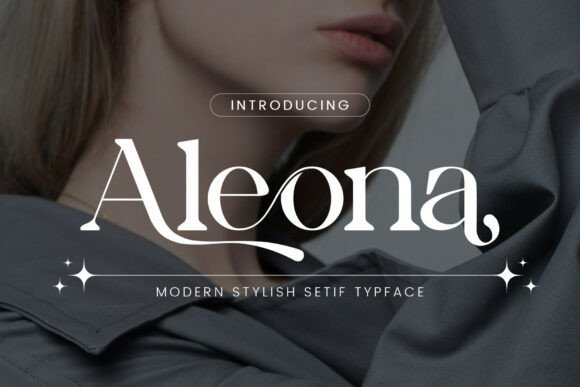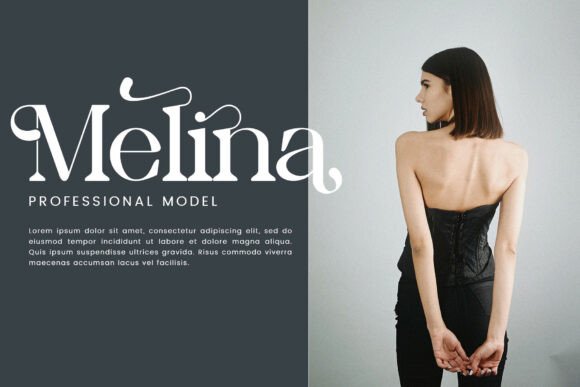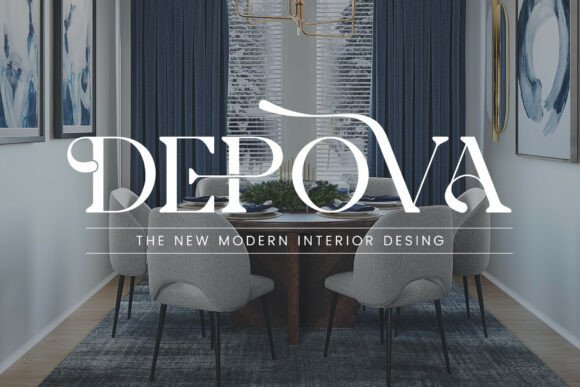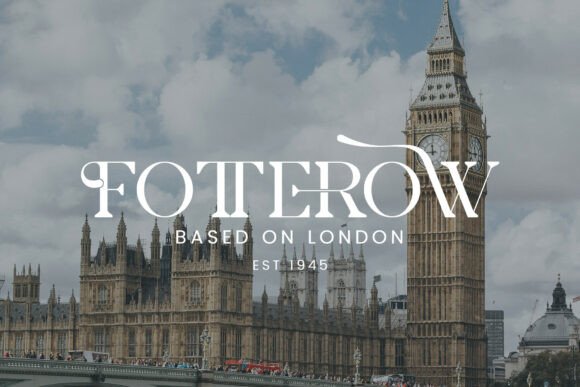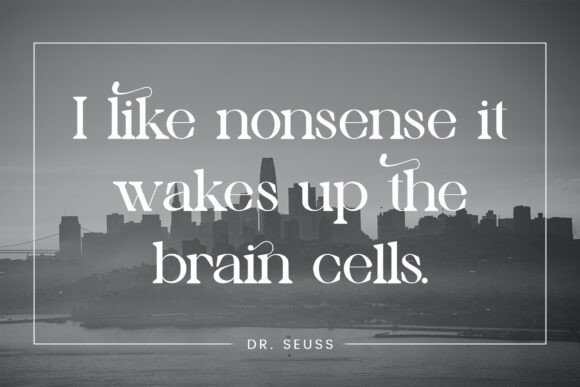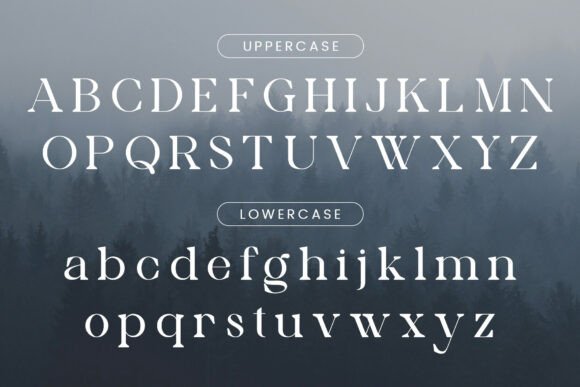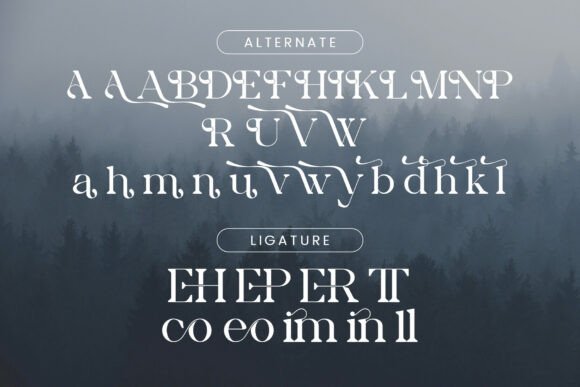
The Elegance of Aleona Font
As a designer, you’ve probably had that moment when a font just clicks – the perfect combination of style and sophistication that elevates your entire project. For me, it was the first time I laid eyes on Aleona Font. Its sleek, modern lines and refined aesthetic immediately caught my attention, and I knew I had to learn more.
Aleona Font is a carefully crafted serif font designed to bring a touch of high-end elegance to your designs. With its high-contrast strokes and beautiful ligatures, it’s the perfect choice for luxury brand logos, upscale editorial headers, and chic social media branding. What sets Aleona Font apart is its ability to convey a sense of effortless prestige and modern sophistication, making it a valuable tool for designers looking to make a polished and timeless visual statement.
Whether you’re working on a high-end fashion campaign or a premium lifestyle brand, Aleona Font is an excellent choice for adding that extra layer of sophistication and refinement to your designs.
Aleona Font Key Features
- Unique Characteristics: The font features a unique blend of modern and vintage elements, with intricate details and ornaments.
- Language Support: Aleona Font supports a wide range of languages, including Latin, Cyrillic, and Greek alphabets.
- Font Style: The font comes in multiple styles, including Regular, Italic, Bold, and Bold Italic, offering users flexibility in their design choices.
Aleona Font Review
I’ve had the chance to work with the Aleona Font, and I must say it’s a mixed bag. Let’s dive in and see what it offers.
- Clean and modern design: The Aleona Font has a sleek, modern aesthetic that can work well for a variety of projects.
- Good legibility: The font is easy to read, even at smaller sizes.
- High-quality glyphs: The font includes a wide range of glyphs, including ligatures and accents.
- Limited expressiveness: The Aleona Font is quite minimalist, which can make it feel a bit sterile or uninteresting in certain contexts.
- No bold or italic weights: The font only comes in a regular weight, which can limit its versatility.
- Not ideal for body text: While the Aleona Font is great for headlines and titles, it’s not the best choice for large blocks of body text.
Overall, the Aleona Font is a solid choice for projects where a clean, modern aesthetic is desired. However, it may not be the best fit for projects that require a bit more expressiveness or variety.
To get the most out of the Aleona Font, try using it in combination with other elegant fonts and design elements. Experiment with different font sizes and colors to create a unique look.
The Aleona Font is commonly used in:
- Editorial and magazine layouts.
Alternatives to Aleona Font
Playfair Display is an elegant, high-end font ideal for luxury branding and high-end design projects. It features intricate details and a sophisticated feel.
Compared to Aleona Font, Playfair Display is more ornate and luxurious, while Aleona Font is more modern and clean. Use Playfair Display for projects requiring a touch of sophistication and elegance.
Lato is a modern sans-serif font perfect for web design, mobile apps, and digital products. It’s highly legible and comes in a range of weights.
Unlike Aleona Font, Lato is more minimalist and clean, making it suitable for digital products and web design. Use Lato for projects requiring a modern and clean aesthetic.
Montserrat is a geometric sans-serif font inspired by urban typography. It’s ideal for tech and startup branding, as well as urban and modern design projects.
Montserrat is more geometric and urban compared to Aleona Font, which is more rounded and modern. Use Montserrat for projects requiring a modern and urban feel.